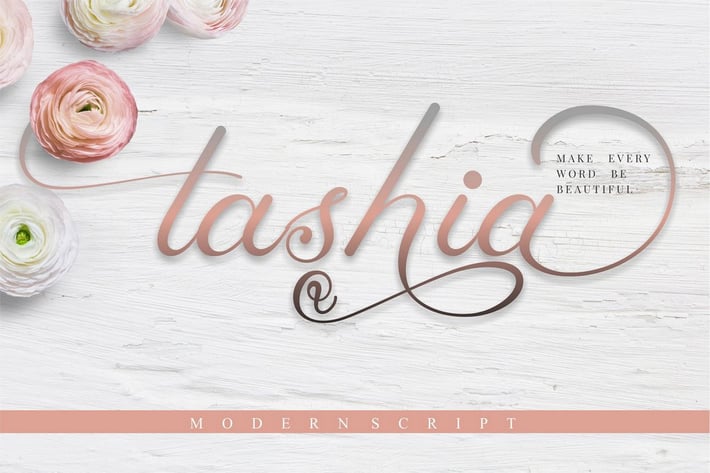
Tashia - Modern Calligraphy Script Font
Tashia
Tashia is a modern calligraphy script font. This font is feminime, elegant, messy and modern.
Tashia perfect for headline, logotype, branding, wedding invite and card, elegant logo, poster, packaging, stationery, website, and many more.
Come with open type feature with a lot of alternates, its help you to make great lettering.
This font is also support multi language.
Comes with feature :
Alternate & Ligature
Number, Punctuation And Symbols
Multilanguage Support.
Tashia is a modern calligraphy script font. This font is feminime, elegant, messy and modern.
Tashia perfect for headline, logotype, branding, wedding invite and card, elegant logo, poster, packaging, stationery, website, and many more.
Come with open type feature with a lot of alternates, its help you to make great lettering.
This font is also support multi language.
Comes with feature :
Alternate & Ligature
Number, Punctuation And Symbols
Multilanguage Support.